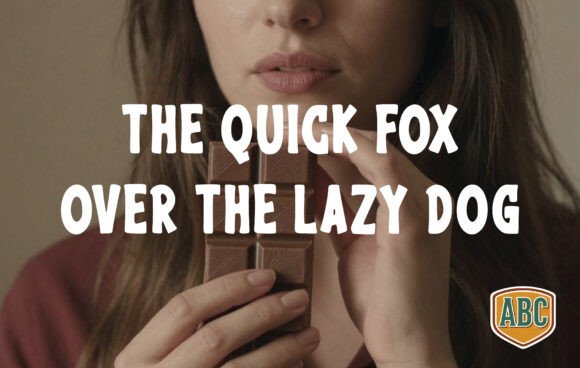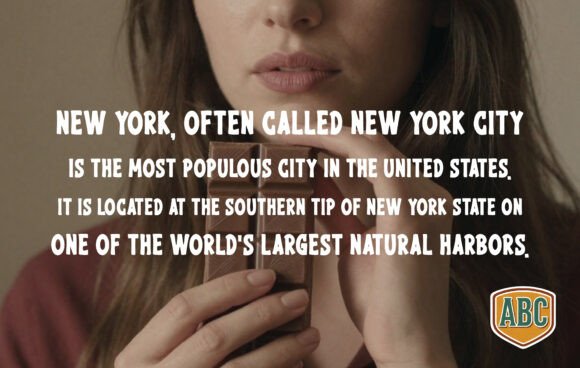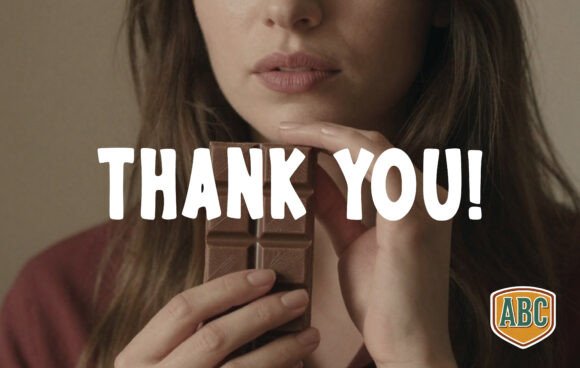
The Sweet Spot: Discovering the CHOCOLATE Font
I still remember the design project that led me to the CHOCOLATE font. I was working on a branding campaign for a new bakery, and I needed a typeface that would convey the warmth, comfort, and playfulness of freshly baked treats. After hours of scrolling through font libraries, I stumbled upon the CHOCOLATE font, and it was love at first sight! The bold, chunky sweetness of this heavyweight typeface instantly captured the essence of the bakery’s brand. In this article, I’ll share my experience with the CHOCOLATE font, its features, and how to make the most of it in your designs.
A Honest Review: The Good and the Quirky
- ✨ Unique, hand-cut edges: The CHOCOLATE font features uneven, hand-cut edges that provide a rugged, “doodled” charm, making it perfect for food packaging, children’s books, or quirky advertising.
- ✅ Maximum readability: The thick, solid letterforms of the CHOCOLATE font ensure maximum readability even at a distance, making it a powerhouse for poster design and YouTube thumbnails.
- 🎉 Versatility: This typeface can add a sense of handcrafted fun to your brand, pairing well with bright colors for a pop-art look or deep browns for a more literal, delicious theme.
⚠️ While the CHOCOLATE font is incredibly versatile, it’s not suitable for body text or small font sizes due to its bold and chunky nature. It’s best used for headlines, titles, or short phrases.
🤔 Some users might find the hand-cut edges a bit too rough, which can be mitigated by experimenting with different font sizes, colors, or pairings.
Similar Fonts or Alternatives:
If you like the CHOCOLATE font, you might also enjoy these similar fonts:
- Kabel: A geometric, sans-serif font with a similar bold and playful feel.
- Bubblegum: A fun, handwritten font with a similar sense of whimsy and playfulness.
- Rock Salt: A rustic, handwritten font with a similar handcrafted feel.
- Great Vibes: A script font with a similar sense of elegance and sophistication.
Designer Inspiration:
The CHOCOLATE font was designed with the intention of capturing the warmth and comfort of handcrafted treats. Imagine a designer who loves baking and wants to create a typeface that reflects the imperfections and charm of handmade goodies. The result is a font that’s both bold and playful, perfect for designs that need a little extra personality.
Frequently Asked Questions:
| What is the CHOCOLATE font best used for? | The CHOCOLATE font is best used for headlines, titles, or short phrases in designs that require a bold and playful typeface, such as food packaging, children’s books, or quirky advertising. |
| Can I use the CHOCOLATE font for body text? | No, the CHOCOLATE font is not suitable for body text or small font sizes due to its bold and chunky nature. |
| Is the CHOCOLATE font suitable for digital use? | Yes, the CHOCOLATE font is suitable for digital use, including social media graphics, YouTube thumbnails, and website headers. |